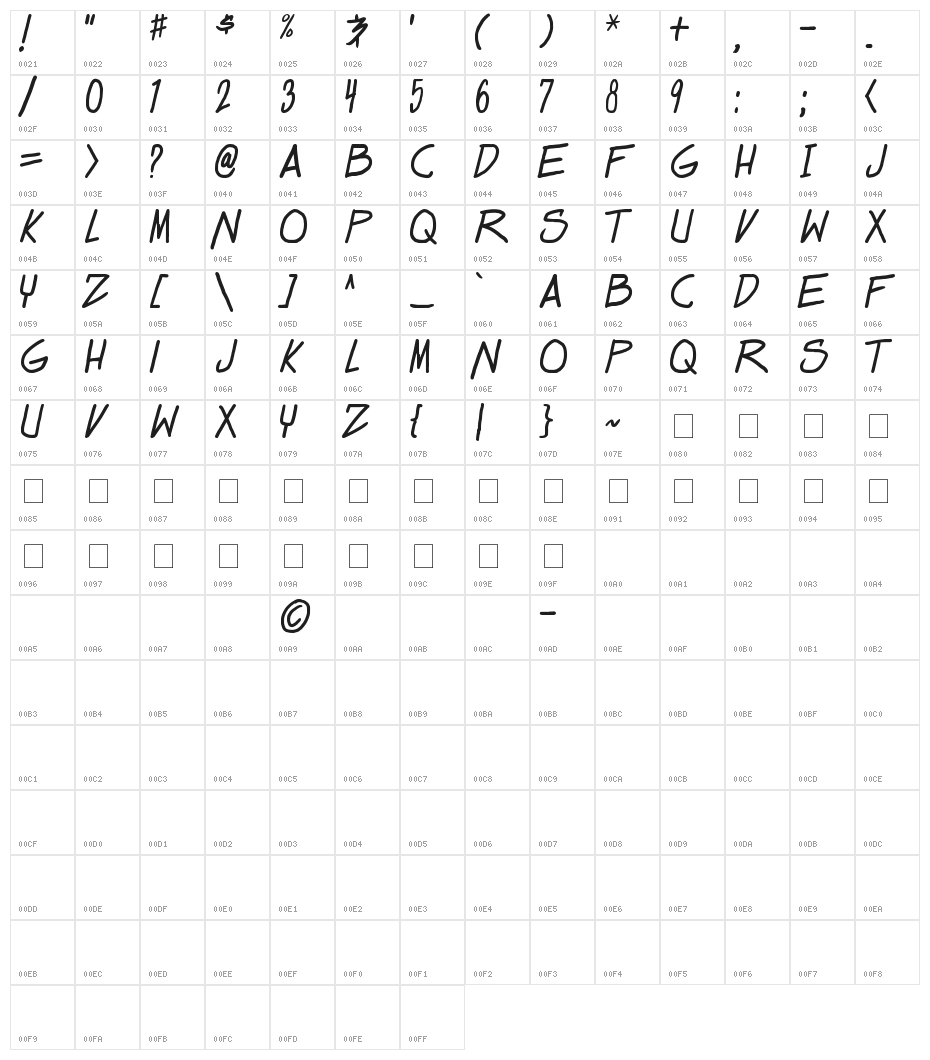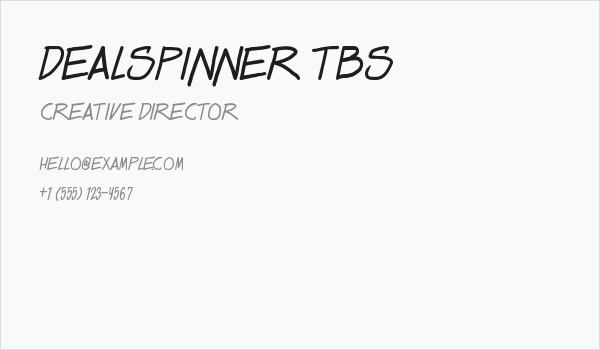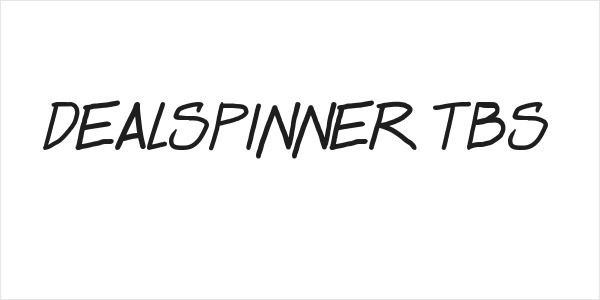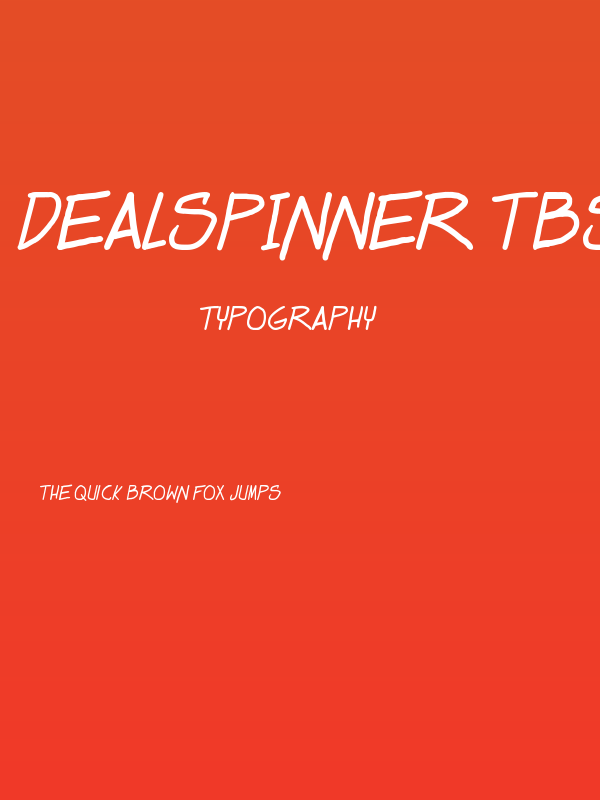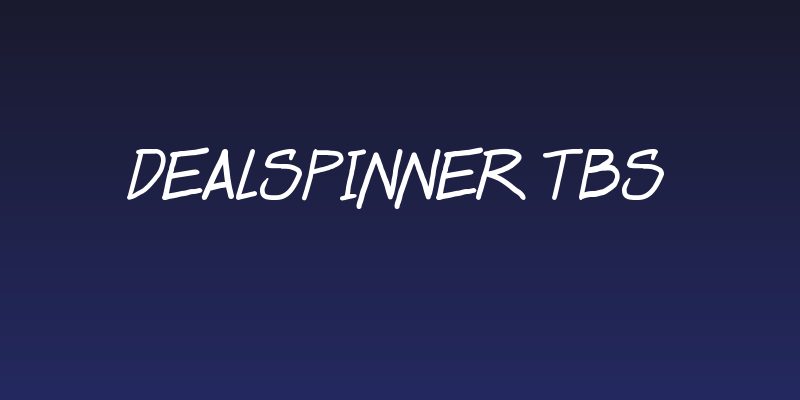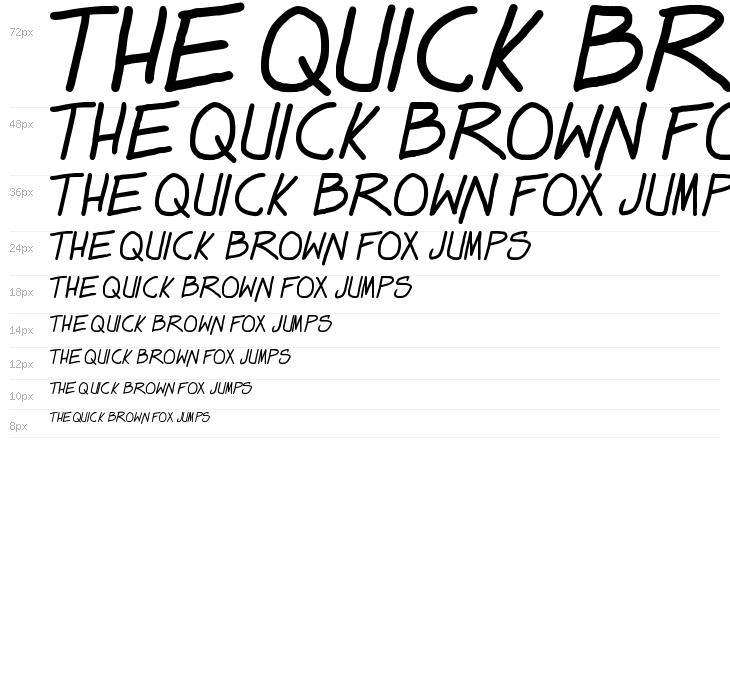
Dealspinner TBS Font
Dealspinner TBS Description
This font exudes a dynamic and energetic style, characterized by its slanted and slightly irregular letterforms that give it a handwritten appearance. The uppercase and lowercase letters maintain a consistent flow, with strokes that vary in thickness, adding a sense of movement and liveliness. The numbers and special characters follow the same stylistic cues, ensuring a cohesive look across all elements. The font's informal and playful nature makes it suitable for projects that require a personal touch or a casual vibe. Its unique style can capture attention and convey a sense of creativity and spontaneity.
| Proposed Projects | Ideal for greeting cards, invitations, posters, and creative branding projects. |